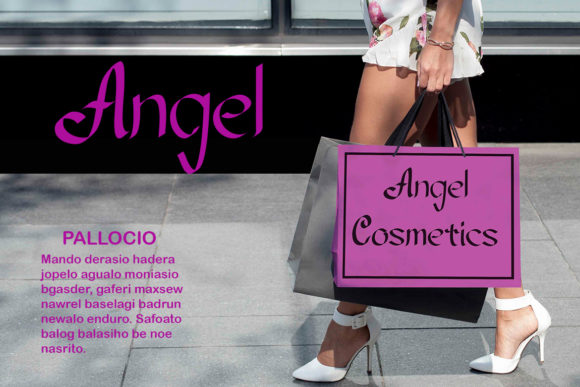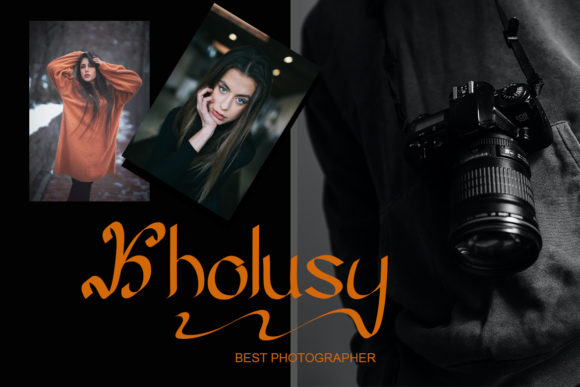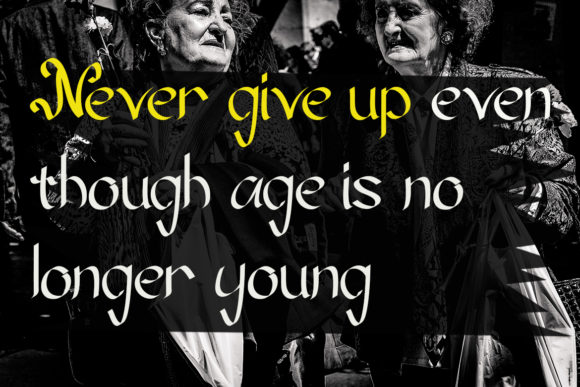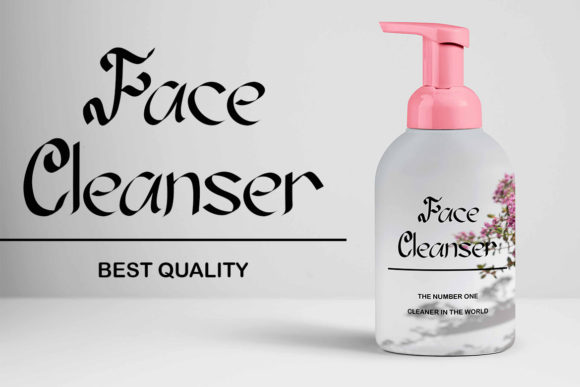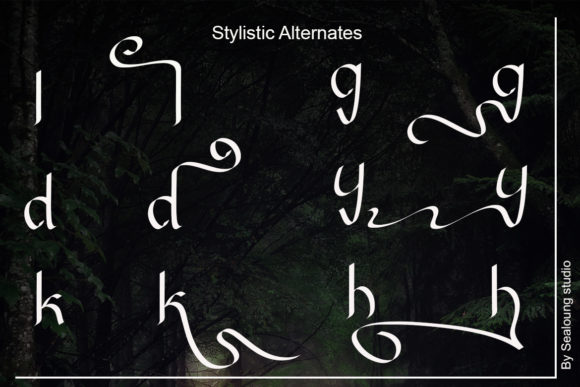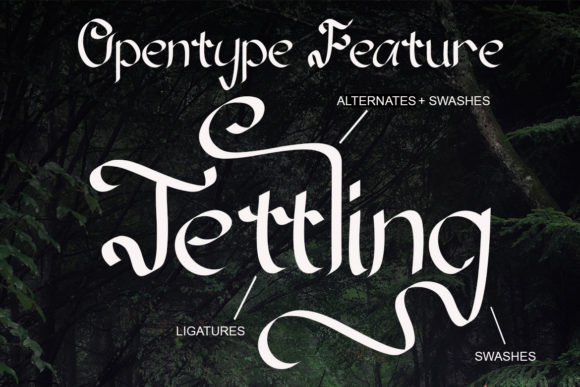
The Art of Elegant Typography
Have you ever been browsing through a beautifully designed book or website, and suddenly, a single word catches your eye? The way it flows, the curves, the flair – it’s as if the letter itself is dancing across the page. This is the magic of typography, and it’s a feeling that designers and artists strive to create with every project. For those who appreciate the beauty of handwritten fonts, there’s a new addition to the world of typography that’s sure to capture your heart.
| 👤 Author | Sealoung |
Aulidah Font is a stunning, modern handwritten font that pays homage to classic calligraphy. Its varying baseline, smooth lines, and gorgeous glyphs make it a valuable tool for designers looking to add a touch of elegance to their work. Whether you’re designing a wedding invitation, a logo, or a children’s book, Aulidah Font is sure to bring a sense of sophistication and style to your project.
Aulidah Font Key Features
- Unique Characteristics: Aulidah Font features a unique blend of elegant and modern design elements, making it suitable for a wide range of applications, from formal to informal.
- Font Style: The font style is a serif font with a mix of geometric and organic shapes, resulting in a visually appealing and highly legible typeface.
- Font Weight: Aulidah Font is available in regular and bold weights, offering flexibility and versatility in its usage.
Aulidah Font Review
I recently had the chance to work with the Aulidah Font, and I must say it’s been a mixed bag for me.
- The Aulidah Font has a beautiful, unique aesthetic that’s perfect for adding some personality to your designs.
- The font is highly legible, making it easy to read even at smaller font sizes.
- The font family is quite extensive, with a range of weights and styles to choose from.
- The Aulidah Font is a bit on the heavier side, which can make it difficult to use in situations where a more subtle font is needed.
- The font doesn’t have a lot of support for non-latin languages, which can be a limitation for designers working on global projects.
- The font’s unique aesthetic can sometimes be a bit too bold, which can be overwhelming in certain contexts.
The Aulidah Font is a solid choice for designers looking to add some personality to their work. While it has its limitations, the font’s unique aesthetic and high legibility make it a great option for many projects. With a bit of careful consideration, I think the Aulidah Font can be a valuable addition to any designer’s toolkit.
For best results, use the Aulidah Font for titles, headings, or emphasis, as it is a bold and elegant font.
The Aulidah Font works well for headings, titles, and captions in graphic design projects.
The Aulidah Font is ideal for headings, titles, and emphasis in presentations and documents.
Use the Aulidah Font for:
1. Titles and headings in graphic design projects.
2. Emphasis in presentations and documents.
3. Captions and descriptions in image editing projects.
For best results, pair the Aulidah Font with a clean and simple design aesthetic.
The Carolyna Pro Font is a modern script font that is perfect for designers who want to add a touch of sophistication and elegance to their work. It’s ideal for use in titles, headings, and other display text where you want to create a sense of drama and flair. Compared to Aulidah Font, Carolyna Pro Font has a more modern and sleek look, making it a great choice for contemporary designs.